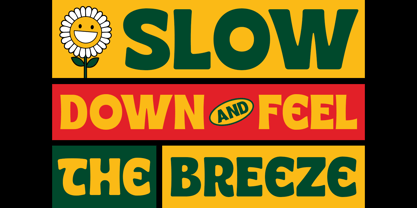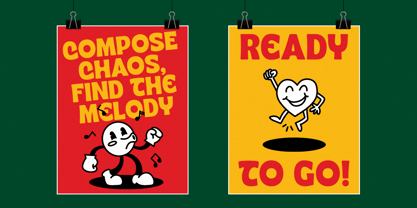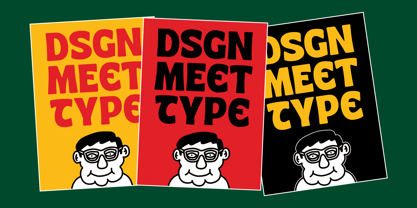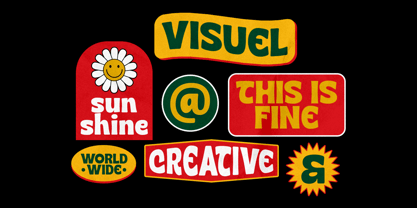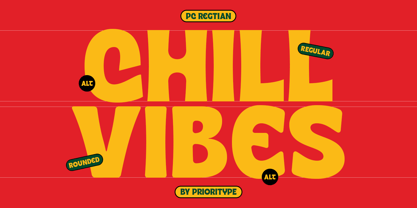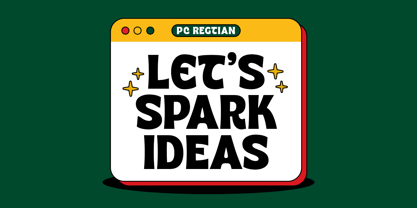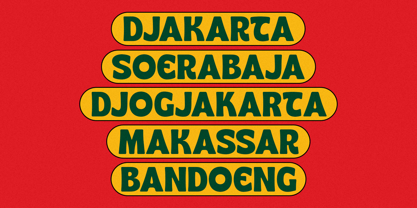
PC Regtian
von Prioritype
Die Schriftfamilie PC Regtian wurde von Prio Nurokhim Aji entworfen und von Prioritype veröffentlicht. PC Regtian enthält 1 Stile. Mehr über diese Familie
Introducing PC Regtian—a bold, attention-grabbing display font available in Regular and Rounded styles. With its unique letter alternates, this font adds a dynamic edge to your designs, making it perfect for posters, logos, and branding projects. Whether you're aiming for a modern look or something with a retro twist, Pc Regtian adapts effortlessly to your creative needs. Ready to go!
Features: Uppercase, Lowercase, Numeral, Punctuation, Multilingual & Alternates.
Designer: Prio Nurokhim Aji
Foundry: Prioritype